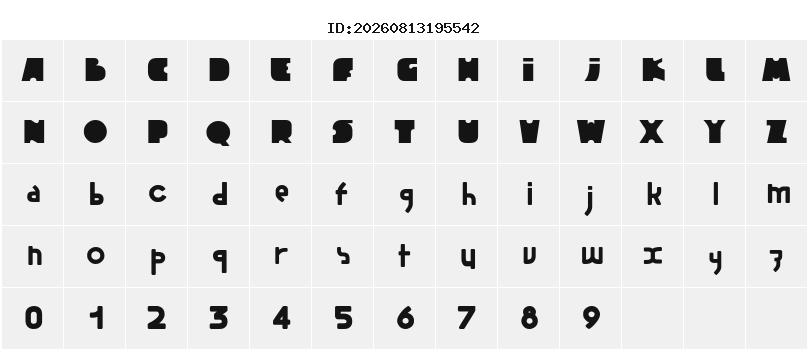
• Font Name: skull_font00
• Full Font Name: skull_font00
About skull_font00.ttf
skull_font00.ttf is a modern, elegant sans-serif font designed for ultimate readability and visual harmony. Perfect for branding, headlines, web design, and print materials.